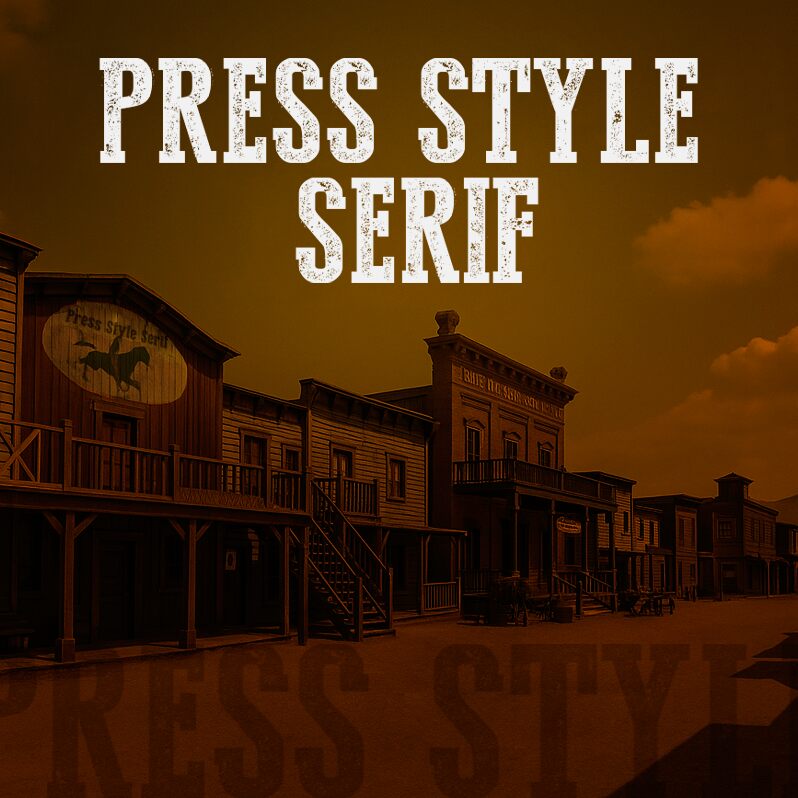
Press Style Serif Regular
Press Style Serif font is a distressed display typeface with an eroded appearance and vintage influence. Designed by Galdino Otten Fonts, this textured free font brings the retro vibe to any project through its rustic and highly detailed letterforms. Its press-inspired aesthetic evokes an authentic impression when used in headlines in particular.
A wide range of use cases can be linked to Press Style Serif including quotes, book covers, video titles, event tickets, logos, shirts printing, packaging boxes or wrappers design. The list increases with time as users find new unique applications for it.